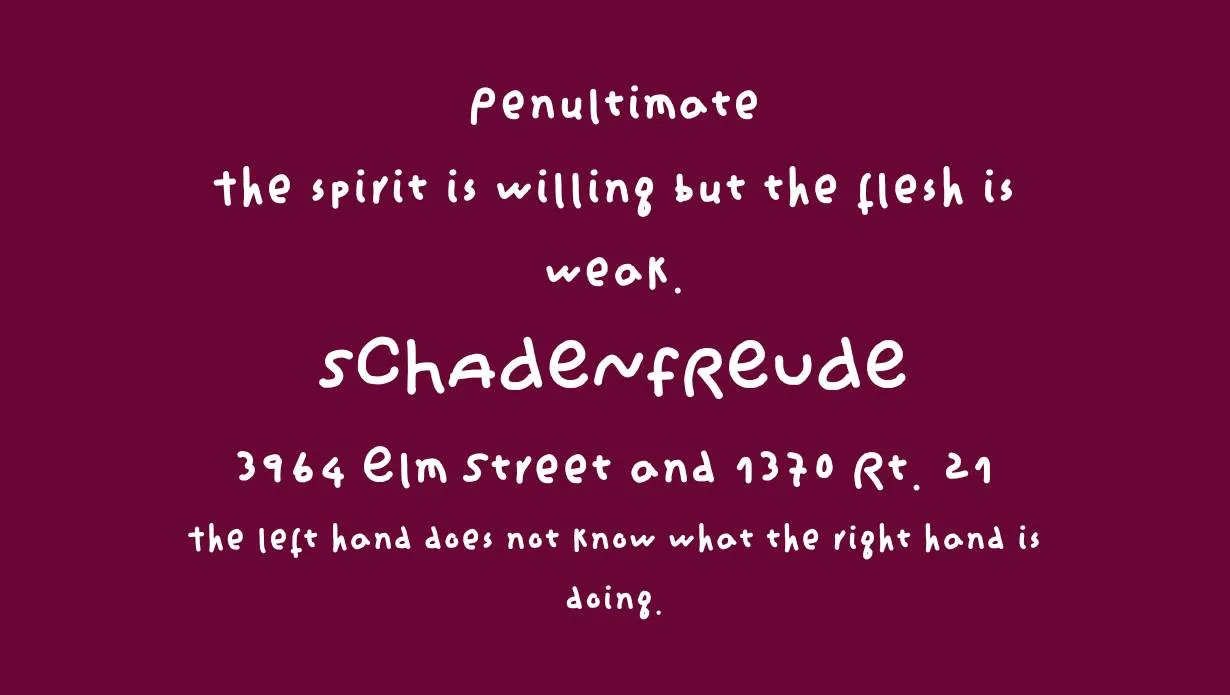
Cantika Cute Handwriting Font brings a playful and handwritten charm to designs with its whimsical letterforms. This font is perfect for projects that aim to convey a sense of friendliness and creativity. Whether used for children’s designs, greeting cards, or social media graphics, Cantika Cute Handwriting Font adds a delightful and personal touch to the typography.
| Name | Cantika Cute Handwriting Font |
| Designer | Situjuh Nazara |
| Style | Handwritten |